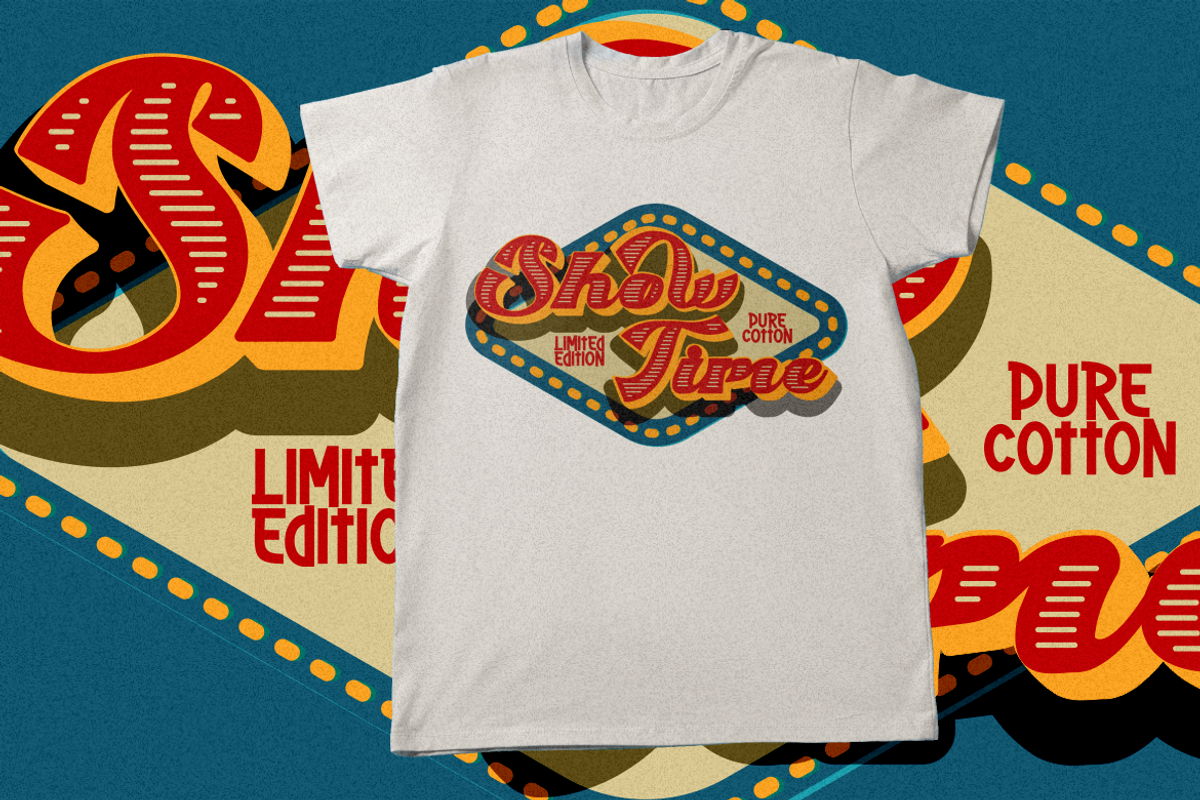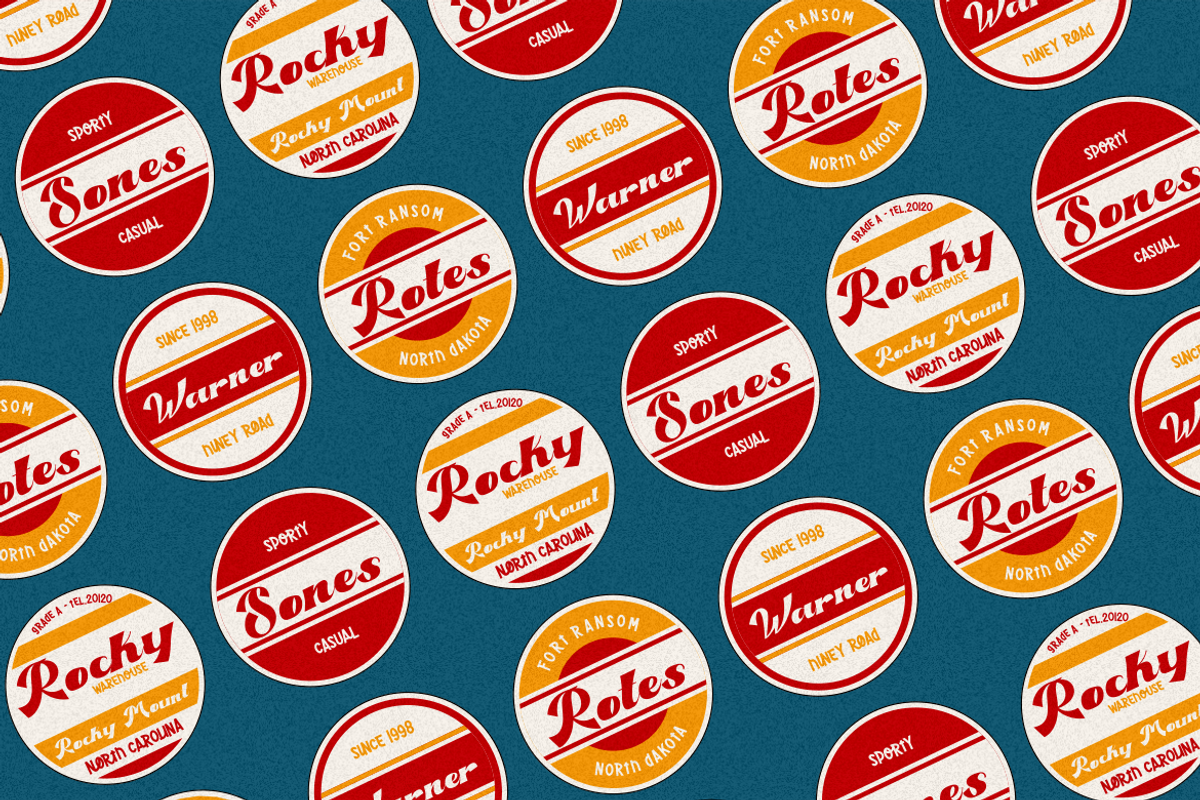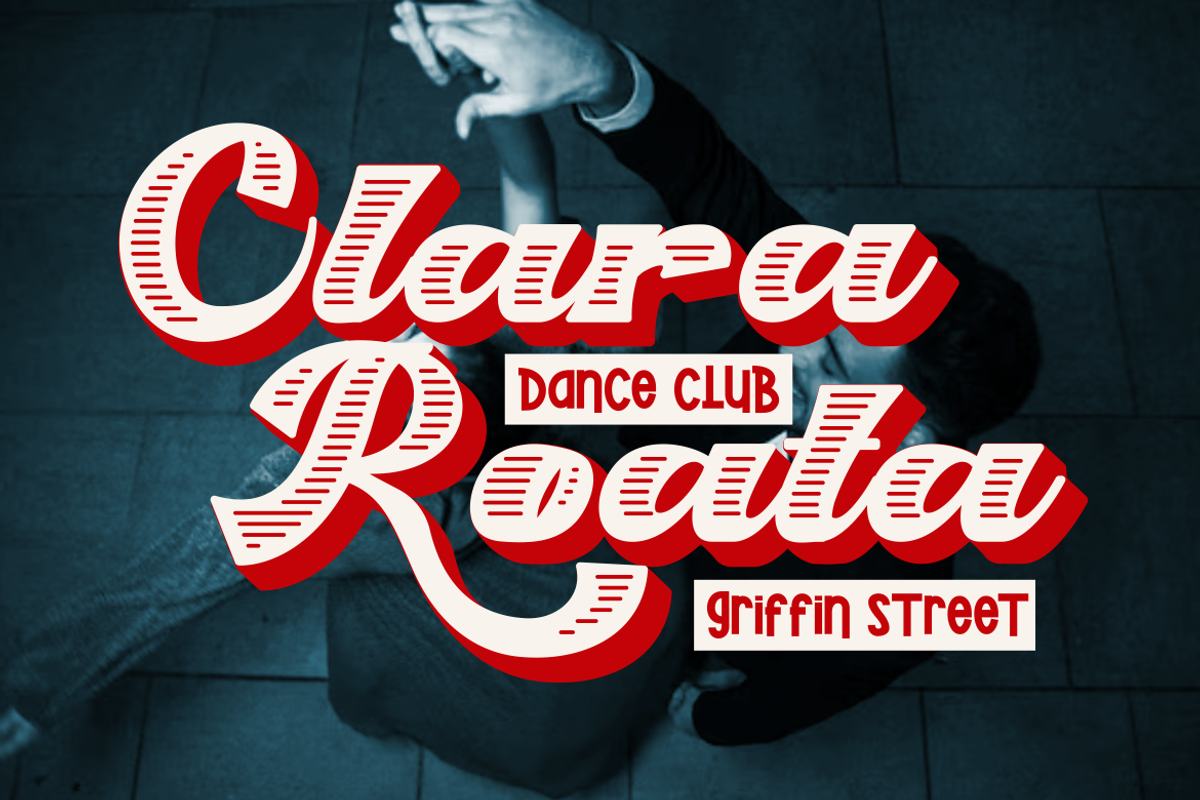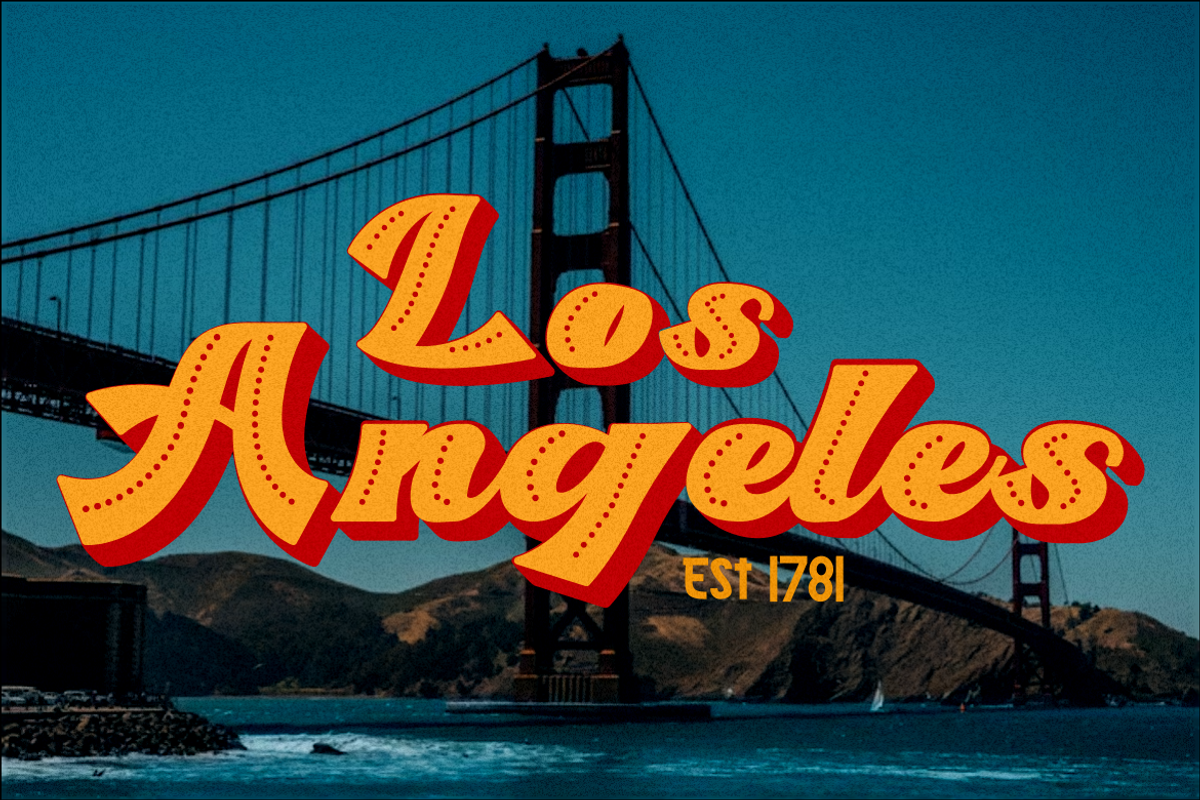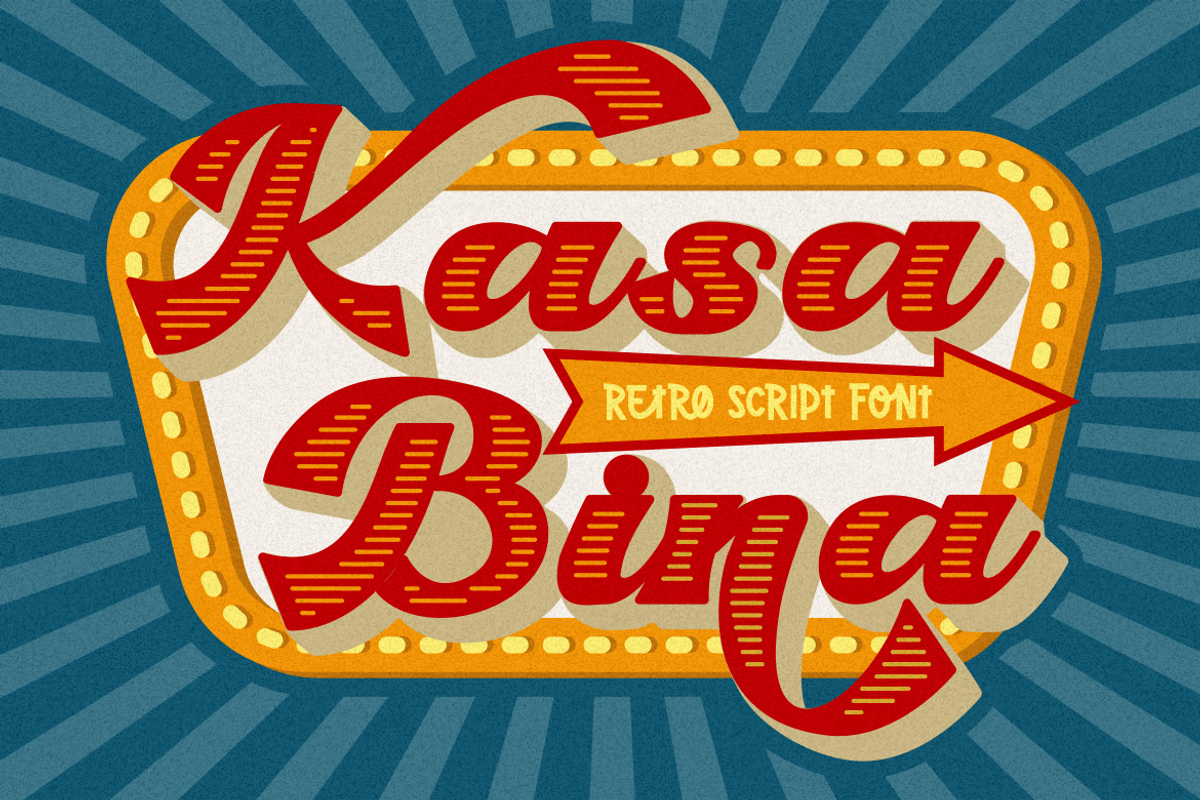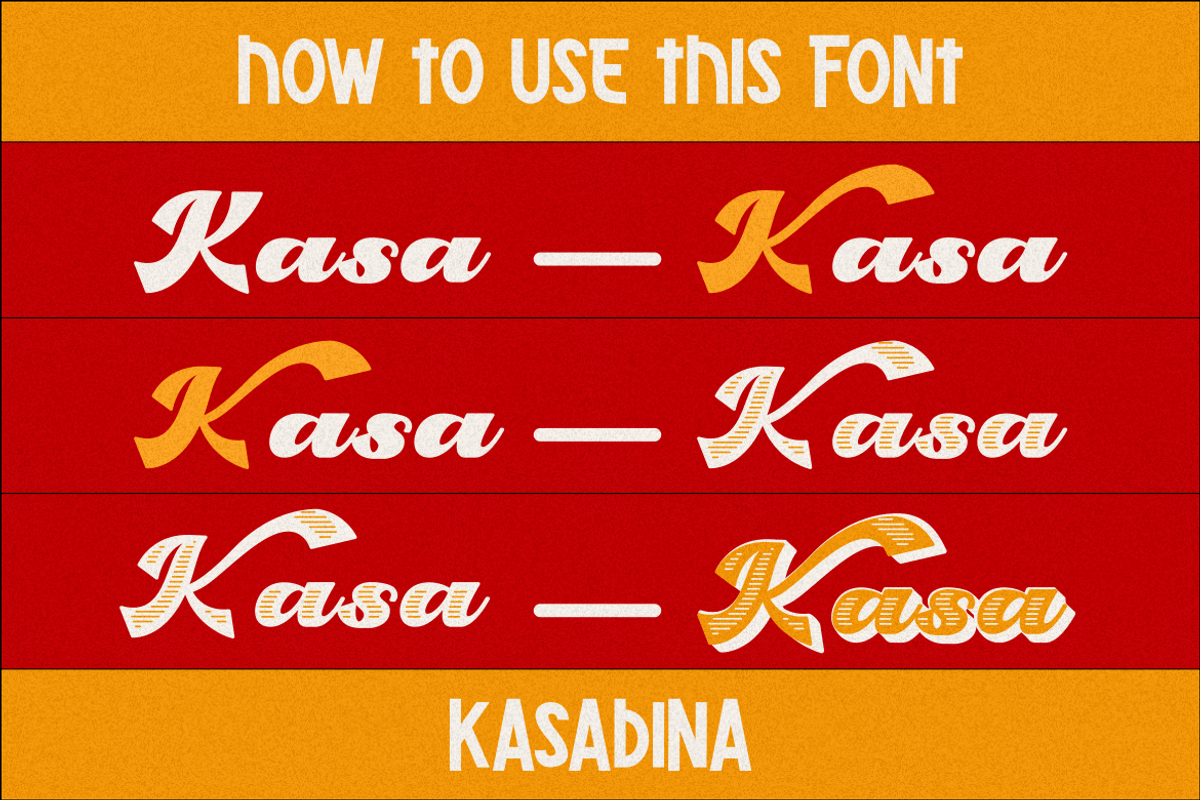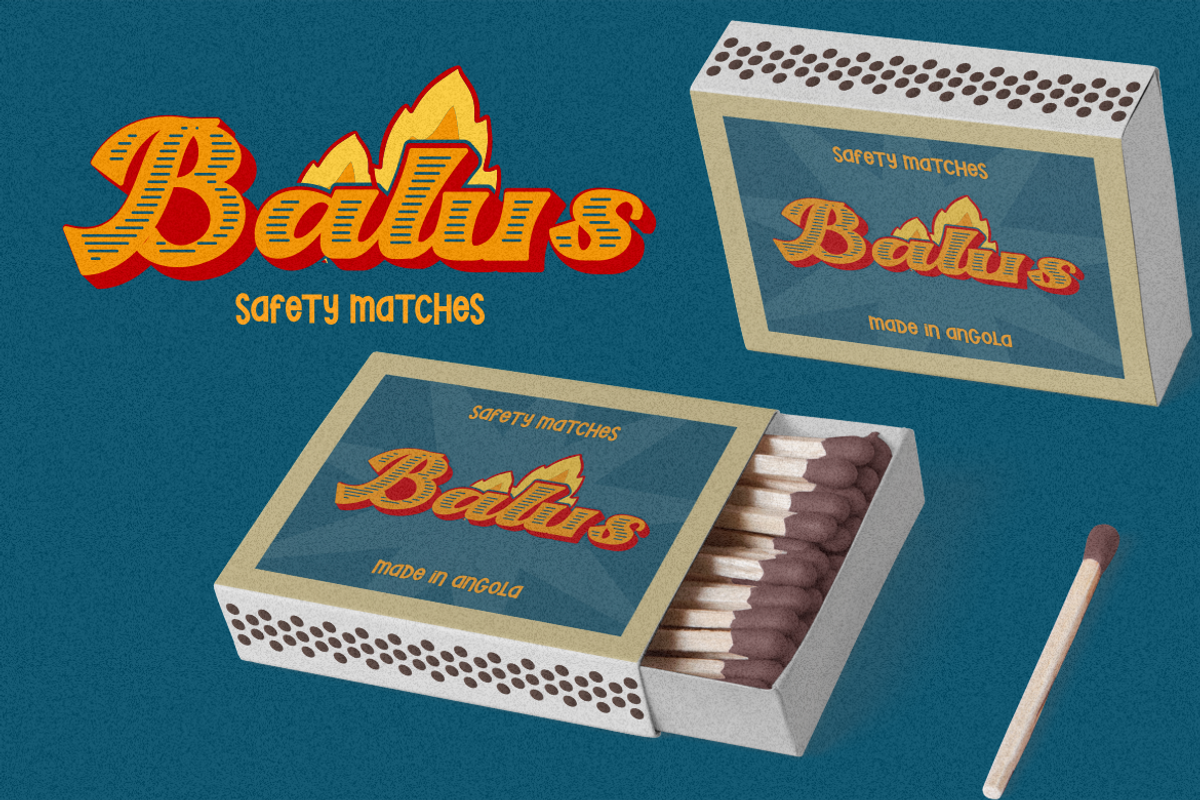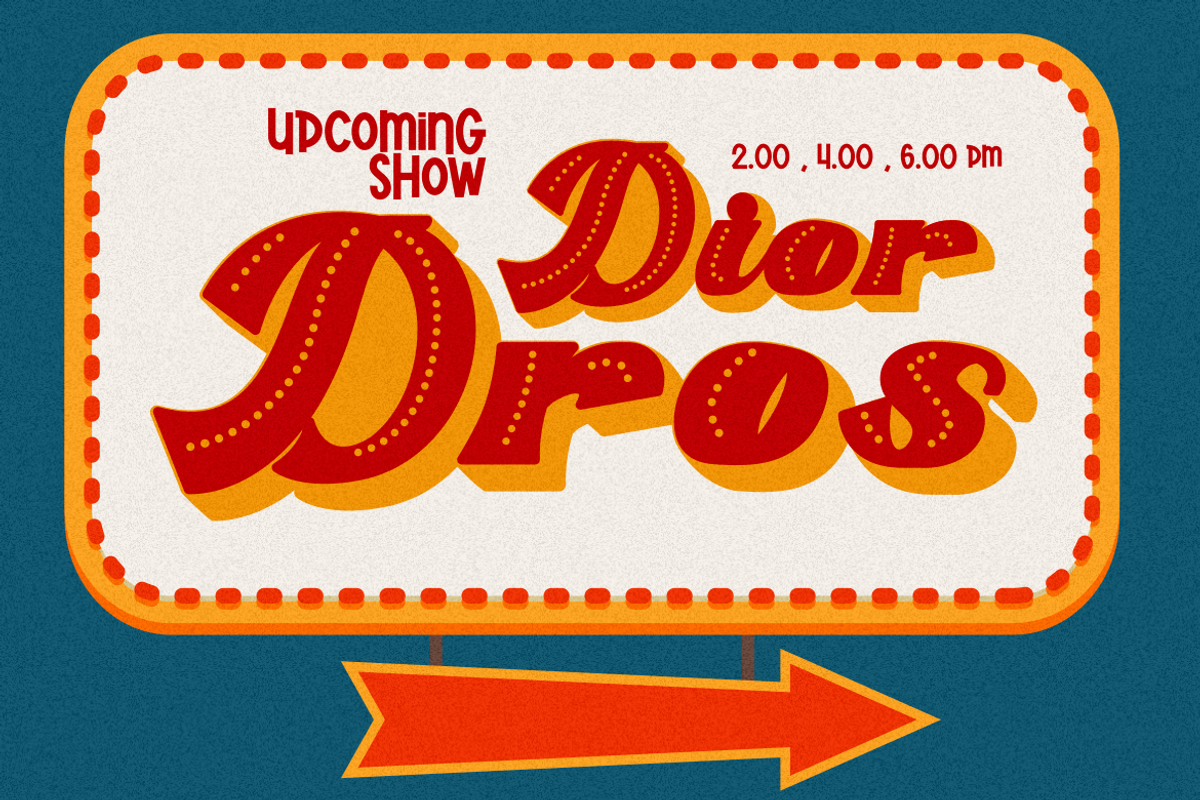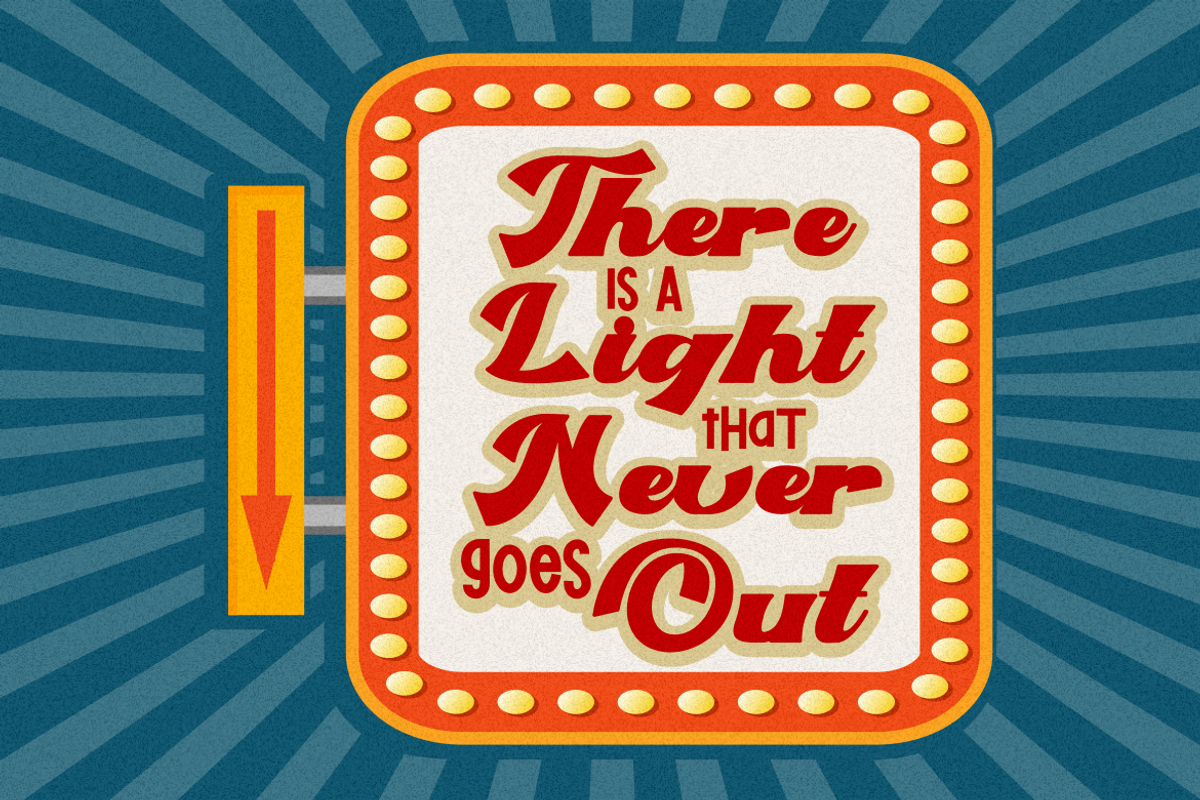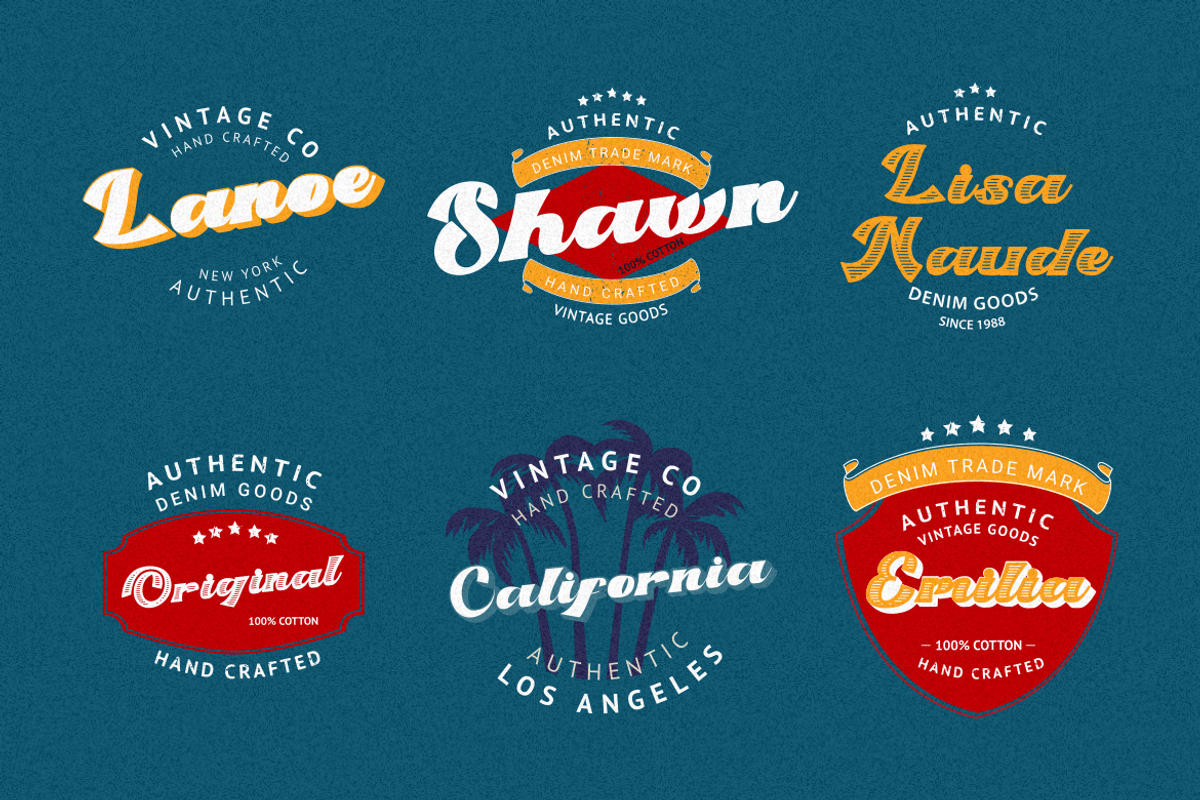
Kasabina - Groovy Script Font
Kasabina - Groovy Script Font is an eye-catching script typeface that beautifully captures the essence of boldness and retro style. With an extensive array of alternative characters, it offers an abundance of design possibilities. But what sets Kasabina apart is the additional layer font support, including line, outline, and shadow options, allowing you to create stunning effects and versatile combinations.
This font can be used both independently and in conjunction with its layer variations. It's the perfect choice for crafting logos, packaging, invitations, greeting cards, posters, magazines, titles, business branding, and designs with a retro or vintage theme. The bold retro aesthetic of Kasabina adds a touch of nostalgia and timeless appeal to your creative projects.
With its versatile layer options, this font offers an array of design opportunities and is an excellent resource for creating stylish and captivating visuals.